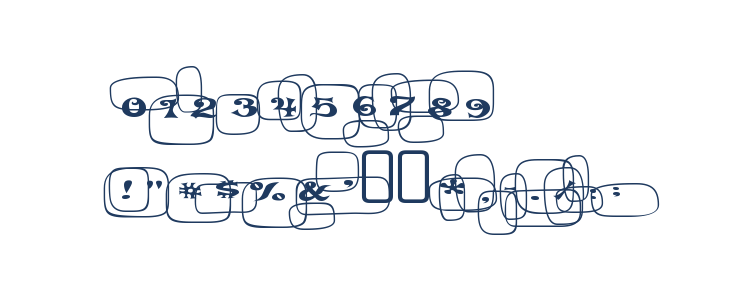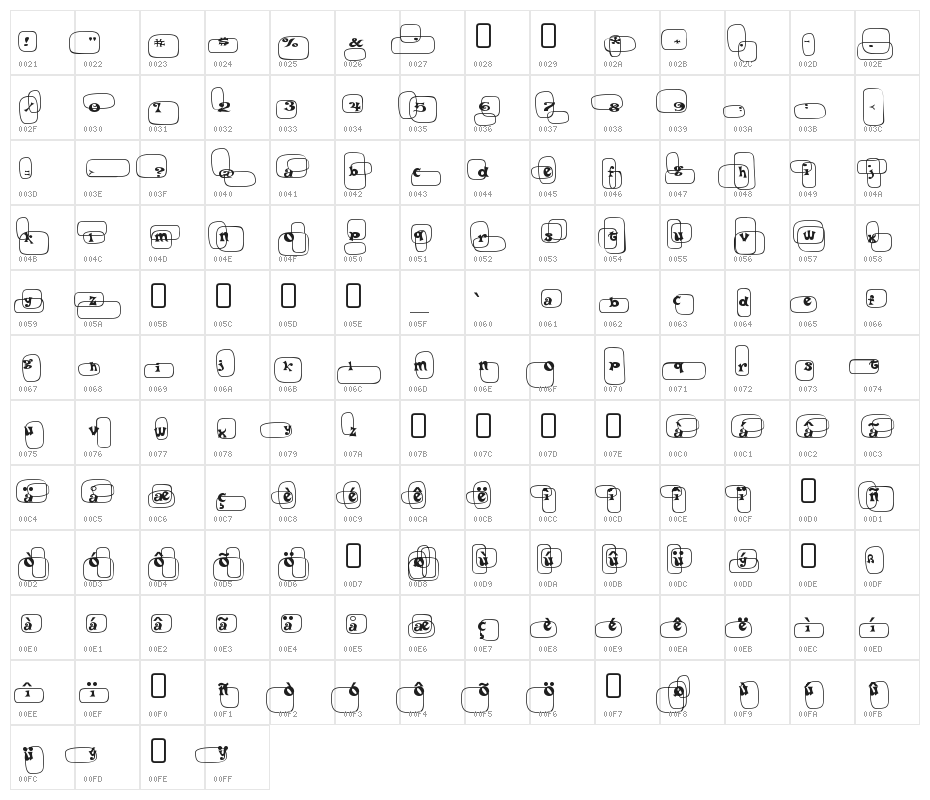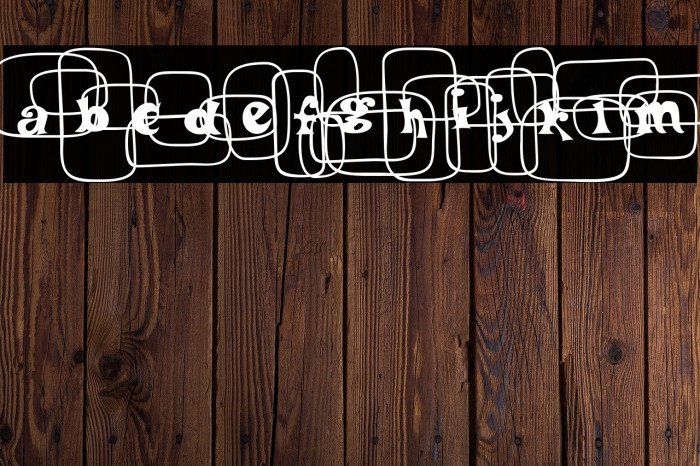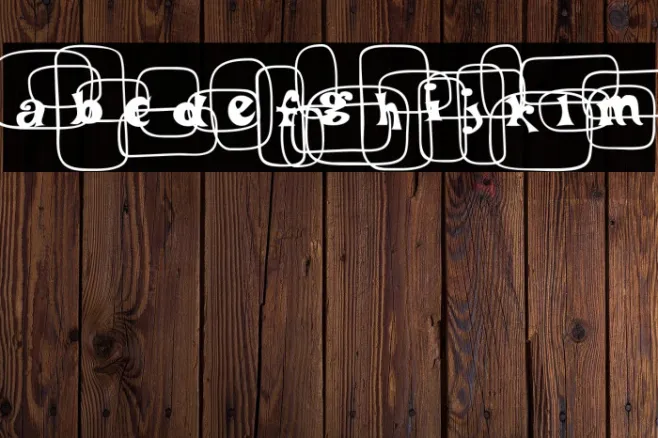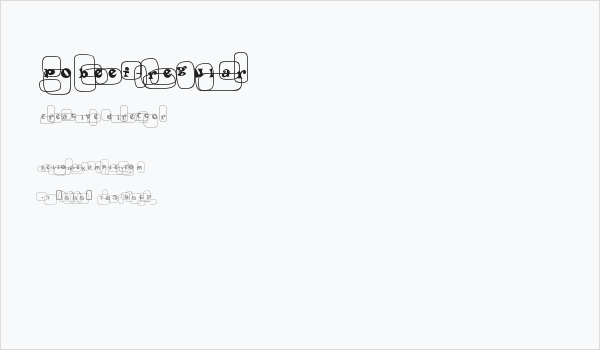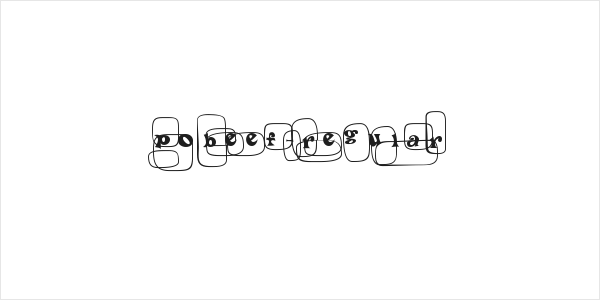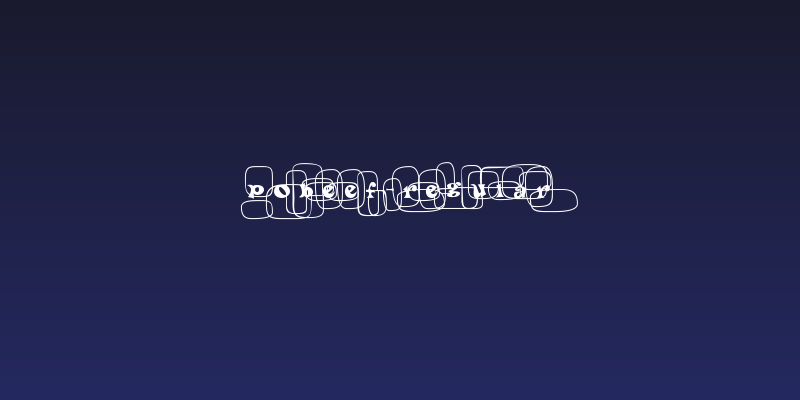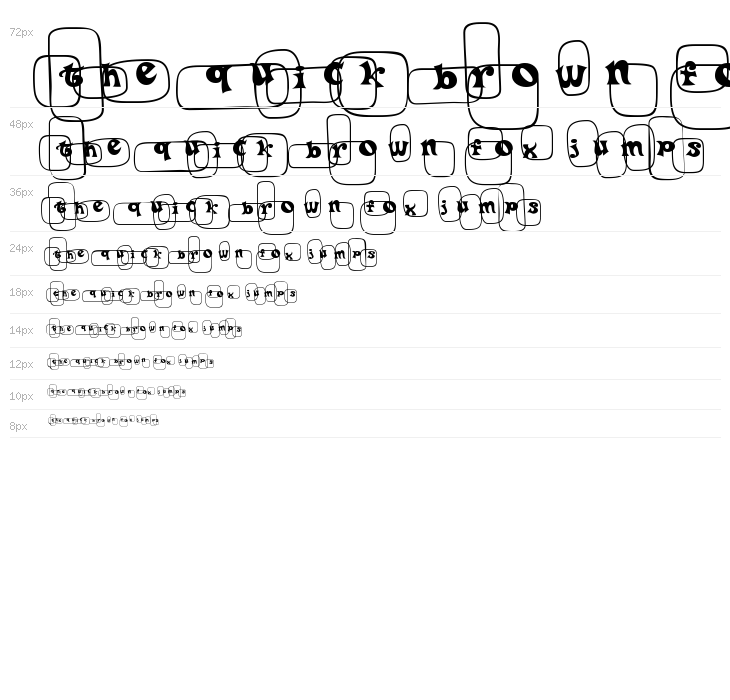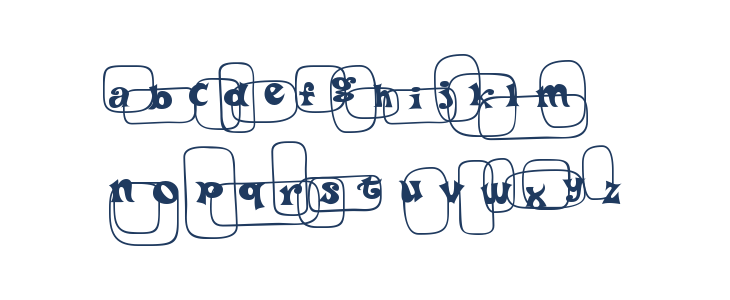
PoBeef-Regular Font
PoBeef-Regular Description
This font features a unique and artistic style with overlapping geometric shapes that create a sense of depth and complexity. The characters are bold and have a playful, almost chaotic arrangement, which makes them stand out dramatically. The design incorporates a mix of sharp and rounded edges, giving it a dynamic and unconventional appearance. The letters are encased in rectangular outlines, adding an extra layer of visual interest. This font is highly decorative and would be suitable for projects that require a strong visual impact.